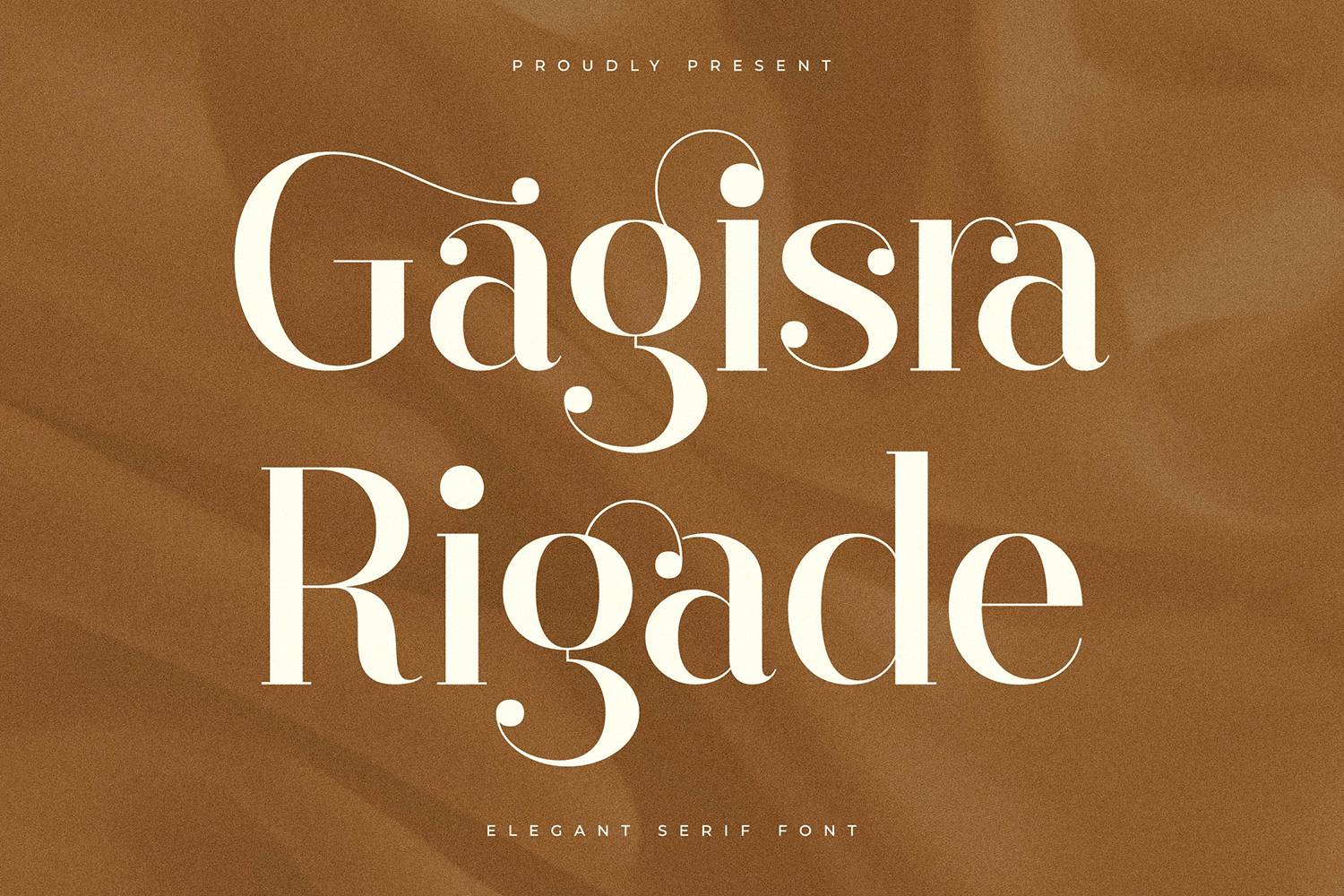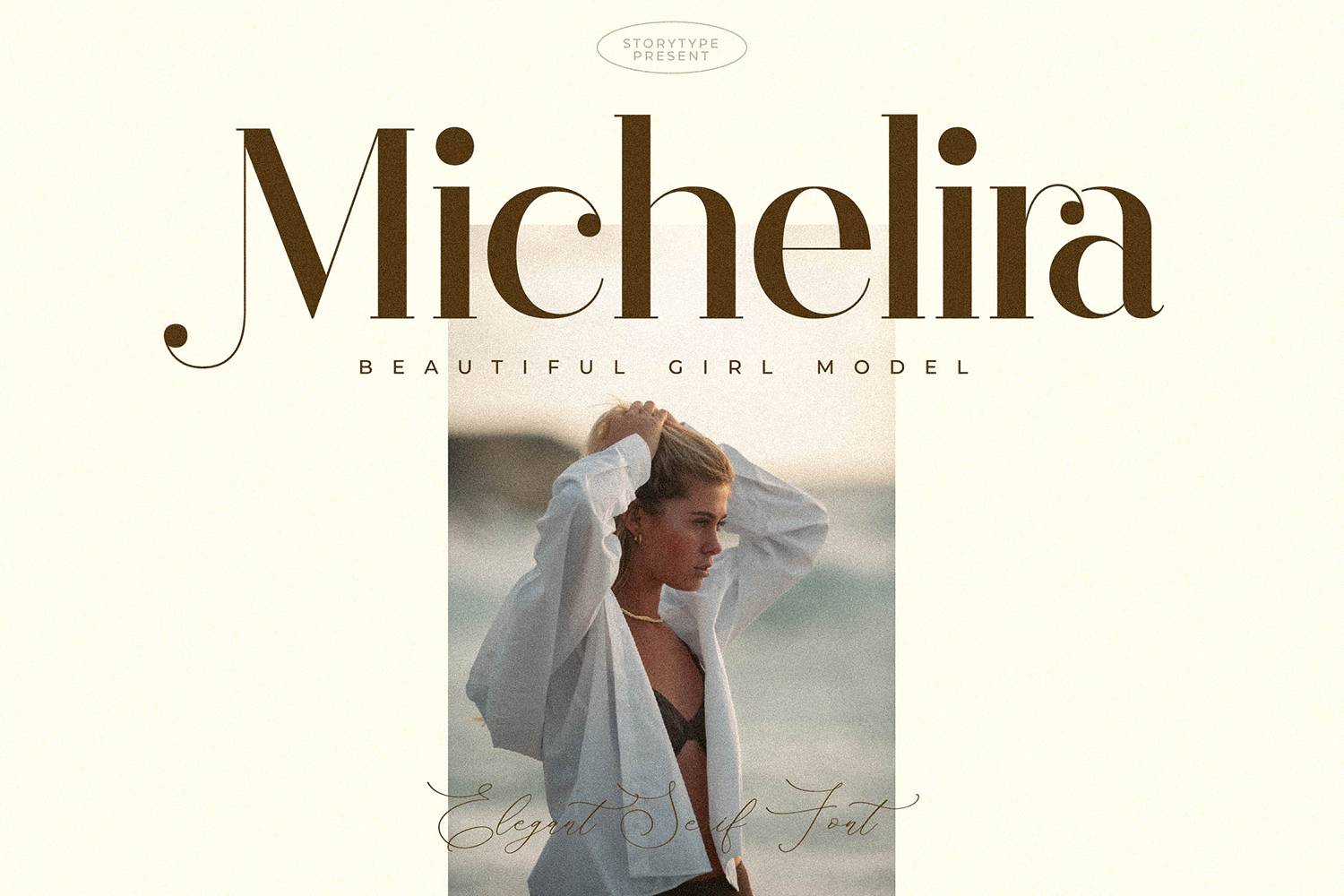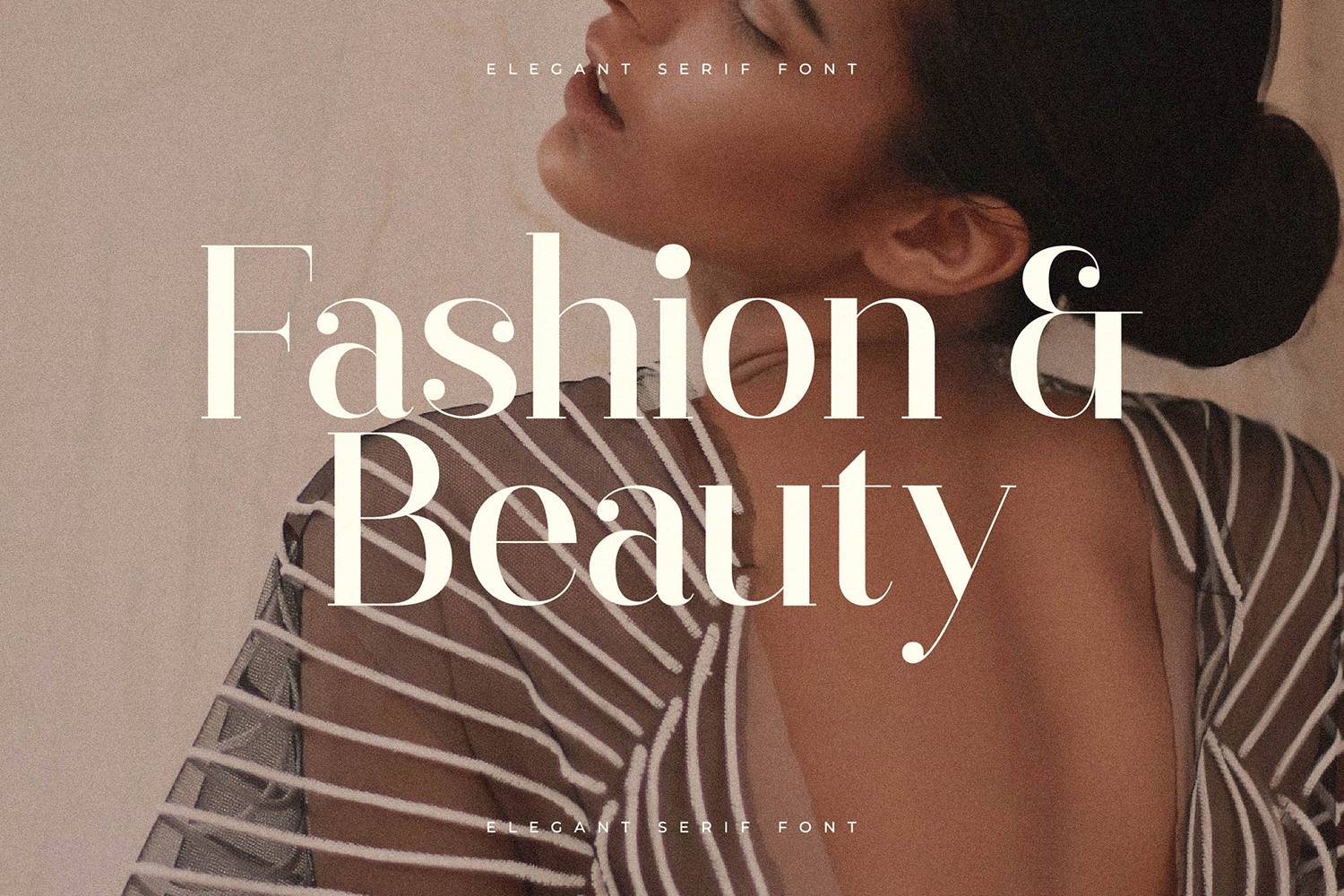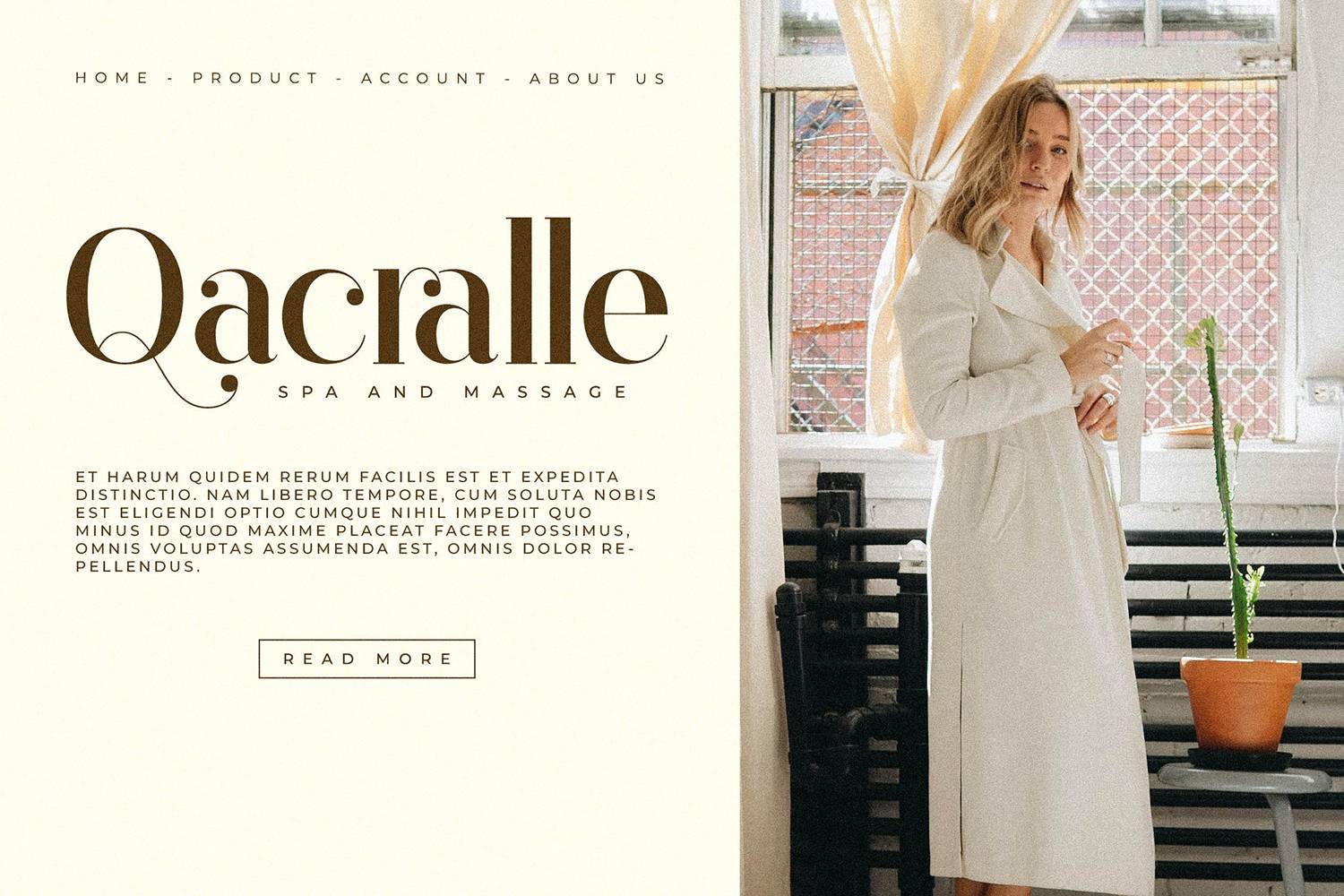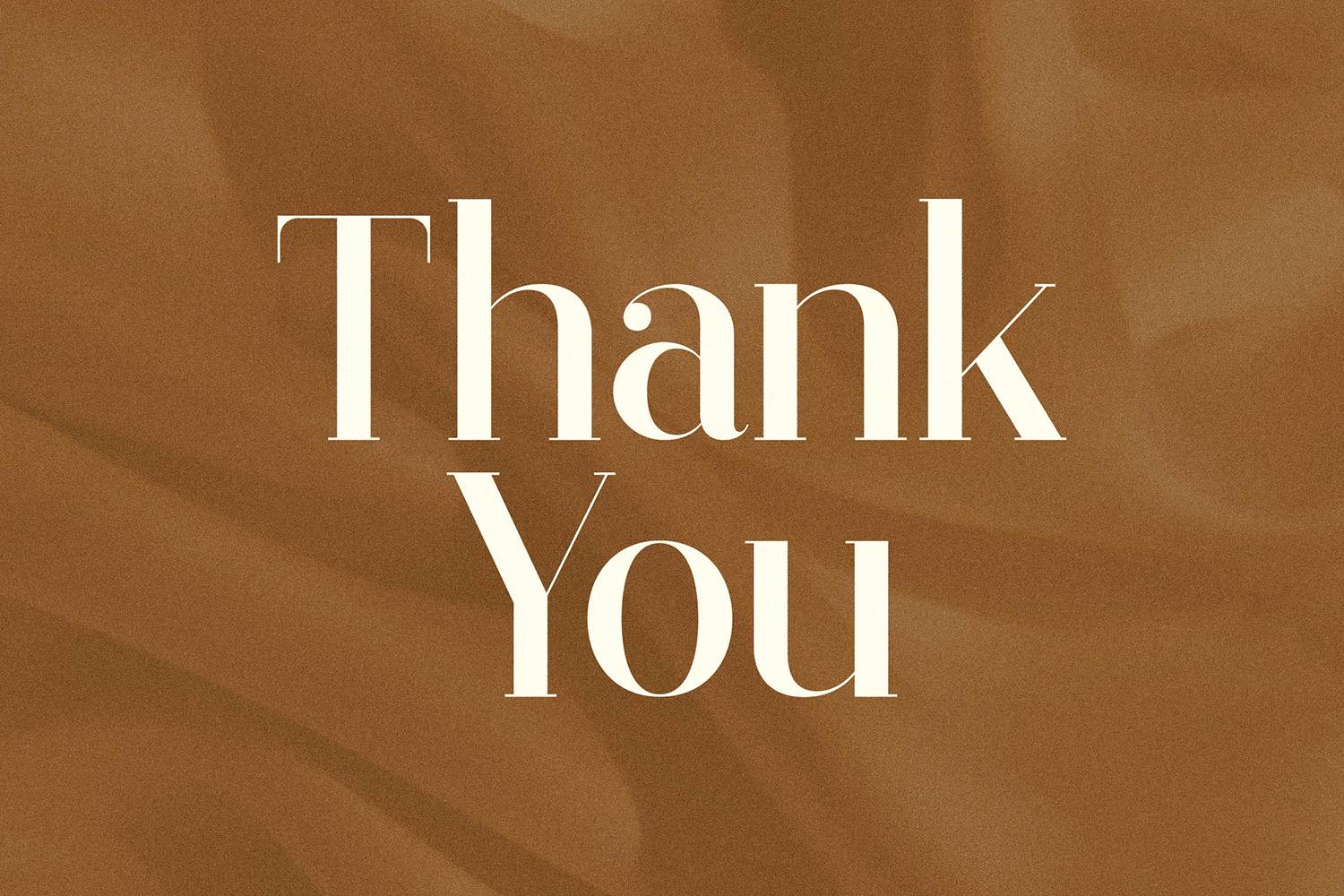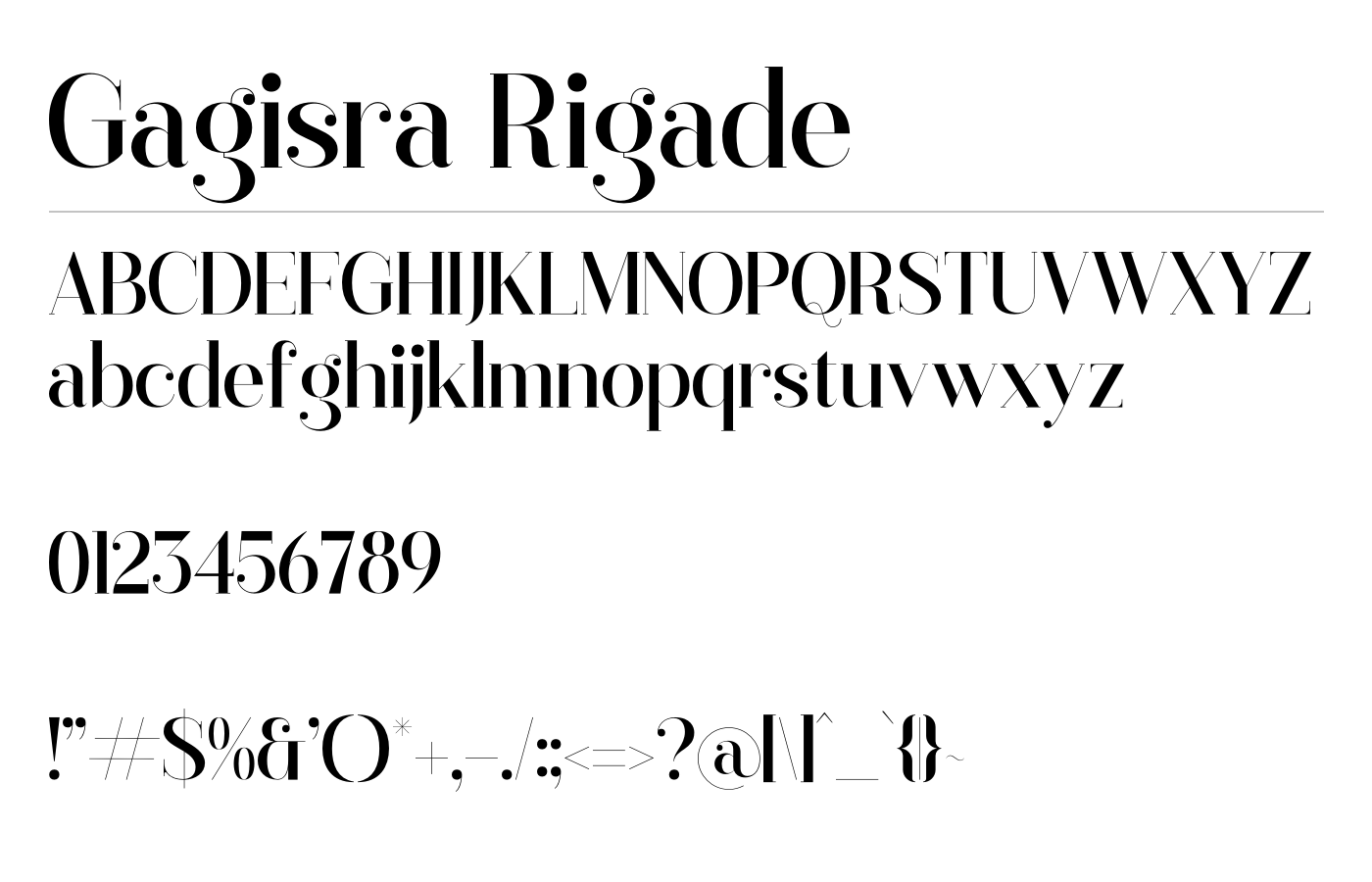
Gagisra Rigade is an elegant serif font with high contrast between thick and thin strokes, featuring refined, thin serifs and distinctive, artistic curves that add a sophisticated flair. Its tall x-height and delicate swashes give it a luxurious and modern feel, making it ideal for upscale branding, editorial headlines, and stylish packaging where a touch of elegance and uniqueness is desired. This font stands out with its graceful letterforms and decorative details, perfect for creating a memorable and polished visual impact.
Gagisra Rigade Font
About Gagisra Rigade Font